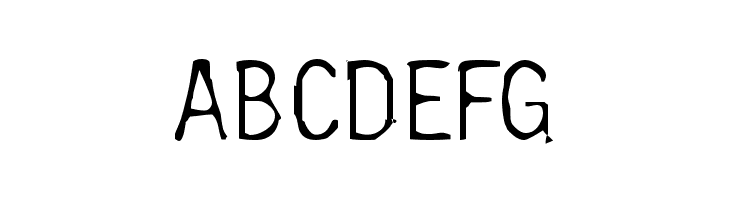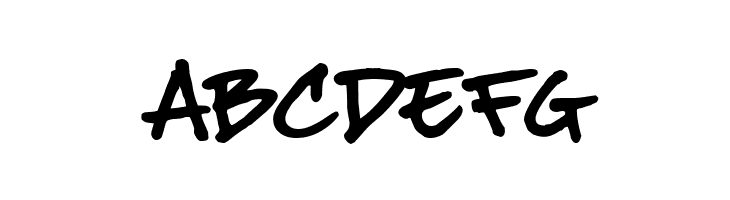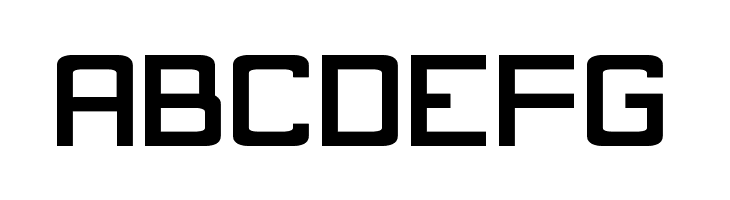
A playful, hand-drawn style font with a whimsical and artistic flair.
A bold, brush-style font with a hand-drawn, energetic appearance.
A geometric, angular font with a futuristic and bold design.
An elegant script font with flowing, decorative letterforms.
A sophisticated cursive script with decorative swirls and elegant curves.
A playful decorative font featuring cartoonish birds and speech bubbles.
A playful, bubble-like font with bold, rounded characters and a three-dimensional outline.
A playful, bold, and hand-drawn font with rounded edges.
A playful, bold font with a hand-drawn, rounded style.
A playful, hand-drawn font with a sketch-like, dimensional appearance.
A tall, narrow, and modern font with high contrast and minimalistic style.
A playful, casual handwritten font with uneven strokes and an organic flow.
A bold, cursive script font with a lively and connected style.
A lively and expressive handwritten font with dynamic strokes and artistic flair.
A bold, distressed font with a grunge, hand-drawn aesthetic.
A bold, decorative font with playful, rounded characters resembling abstract shapes.
A bold, flowing script font with elegant, hand-drawn curves.
A bold, angular font with a futuristic and dynamic design.
A modern, geometric font with bold, structured characters.
An elegant, flowing script font with a calligraphic style.
A handcrafted, calligraphic font with elegant, flowing curves and artistic flair.
Artistic, hand-drawn font with abstract faces and figures.
A bold, playful handwritten font with rounded, irregular characters.